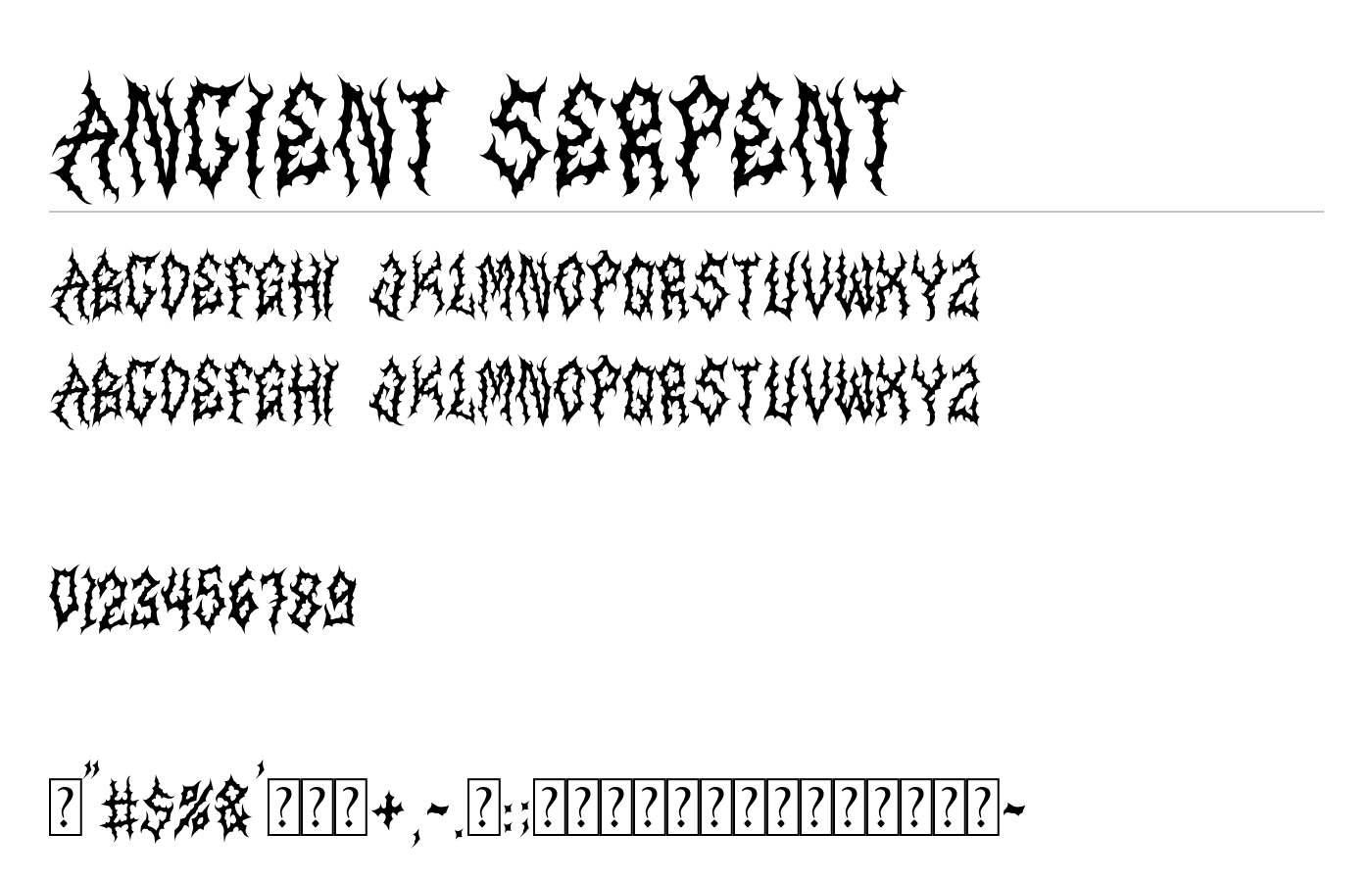
Ancient Serpent Font is a dramatic and highly decorative display typeface featuring sharp, jagged strokes that create a fierce, almost tribal visual impact. Its bold, condensed letterforms with irregular edges give it a strong and edgy personality, making it ideal for attention-grabbing headlines, logos, and designs that seek a dark, gothic, or fantasy-inspired vibe. This font excels in creative projects like posters or branding where a striking, unconventional style is desired rather than extended body text.
Ancient Serpent Font
About Ancient Serpent Font
| Font family | Ancient Serpent Font |
| Designer | Hamber Perdiansyah |